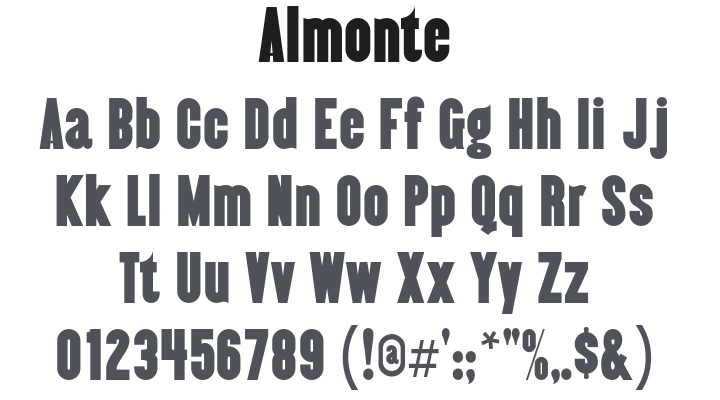
Almonte Font Family
About Almonte
Almonte is a chunky novelty display typeface styled after old wooden farm lettering — though it has never seen real wood. It comes in three variants: standard, woodgrain, and snow, giving it a rustic yet fantastical character. Perfect for steampunk themes, holiday designs, quirky branding, vintage fair or carnival posters, and any project needing gonzo-historical charm.